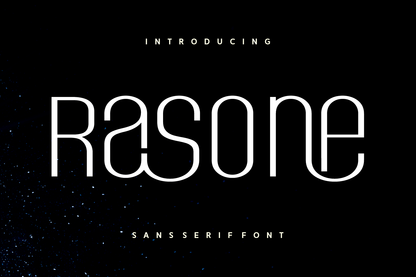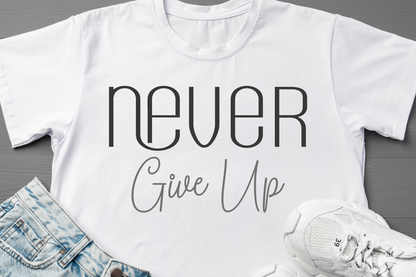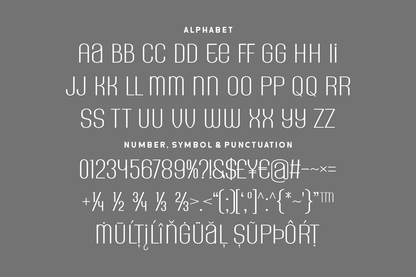
Rasone is a futuristic sans-serif with a unique, artistic flair. Its split letterforms and fluid strokes give it a high-concept, editorial edge—perfect for tech branding, fashion-forward layouts, or cosmic-themed design.